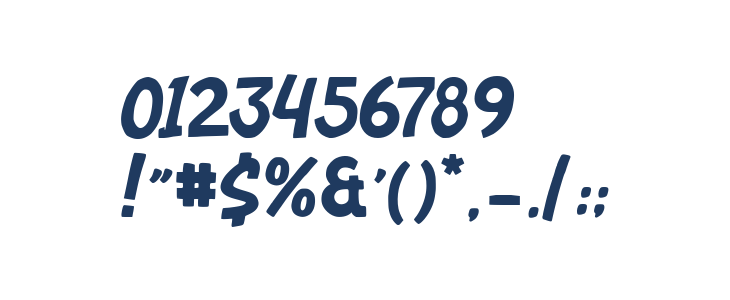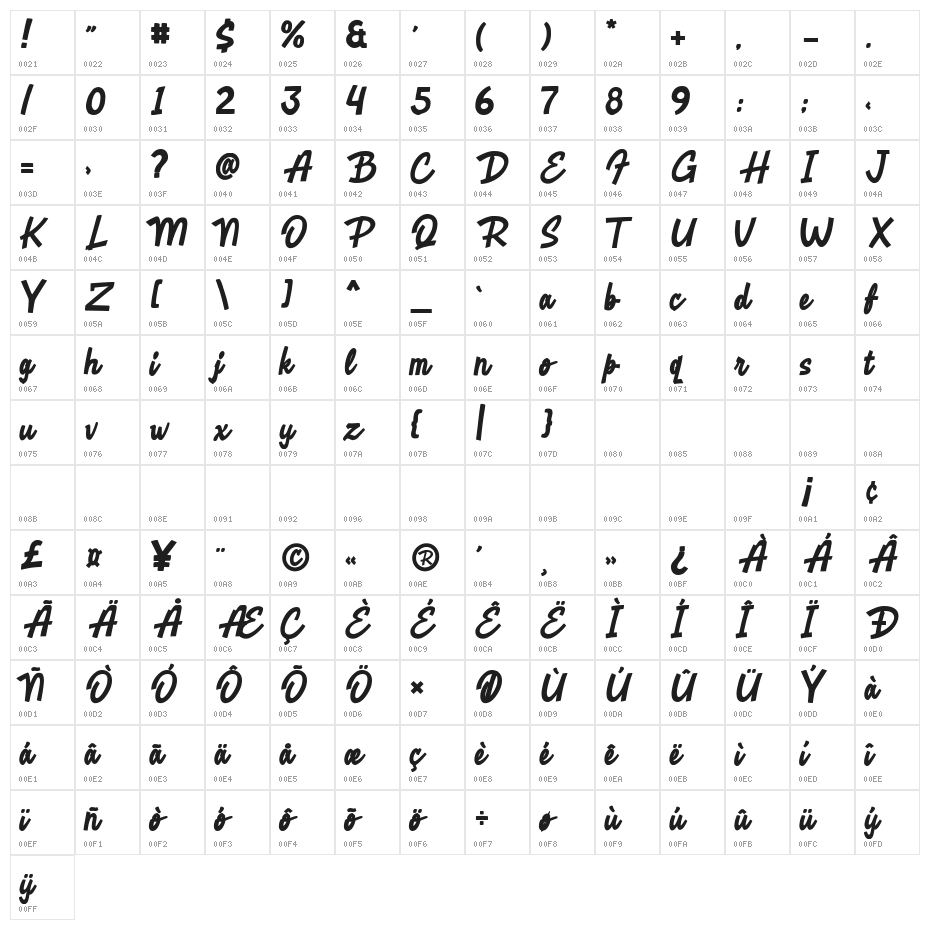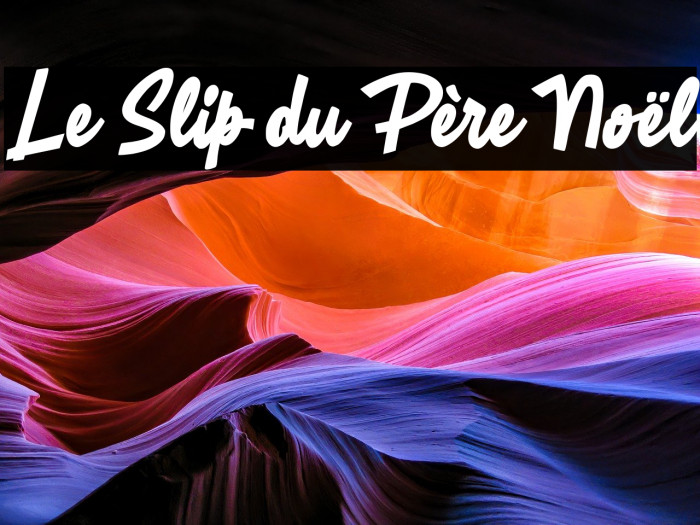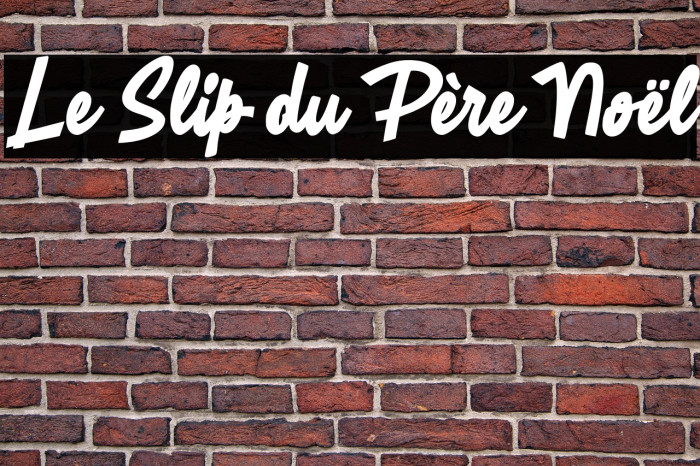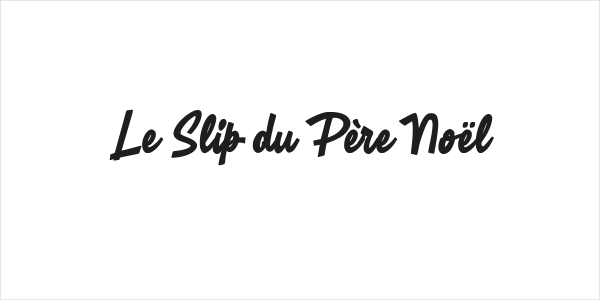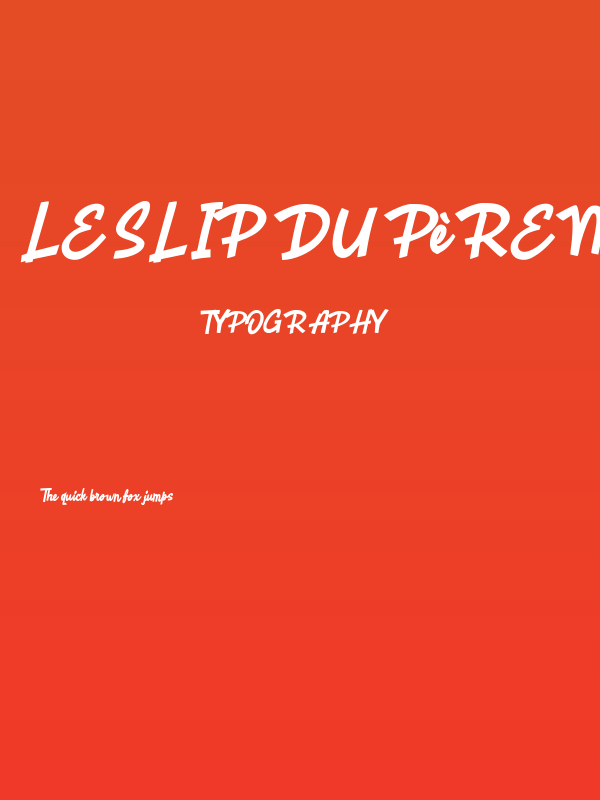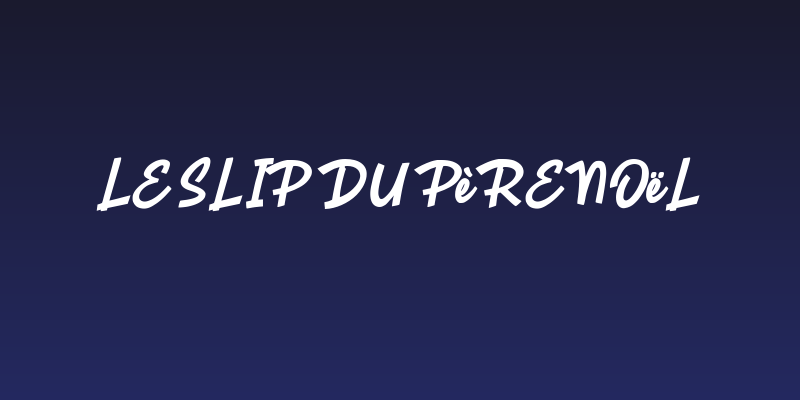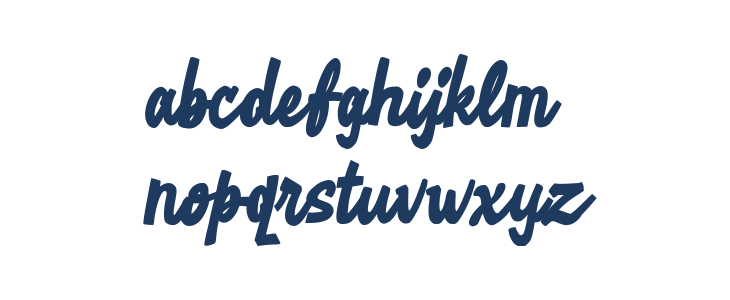
Le Slip du Père Noël Font
Le Slip du Père Noël Description
This font features a bold and dynamic script style with a playful and energetic flair. The letters are slightly slanted, giving a sense of motion and fluidity. The strokes are thick and consistent, providing a strong visual impact. The uppercase letters are bold and prominent, while the lowercase letters maintain a cohesive flow with smooth curves and rounded edges. The numerals are equally bold, ensuring readability and uniformity. Special characters are designed to match the overall style, maintaining the font's lively and expressive nature.